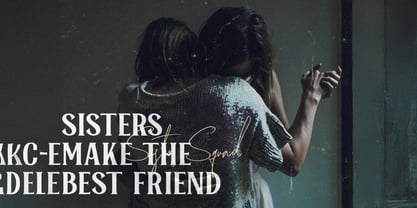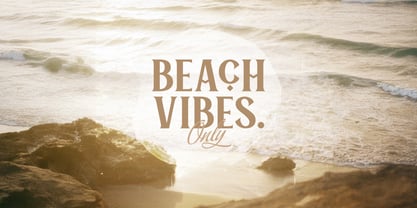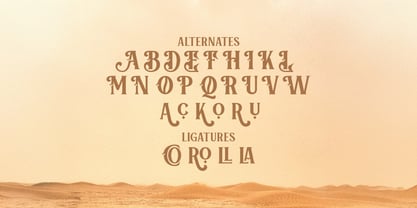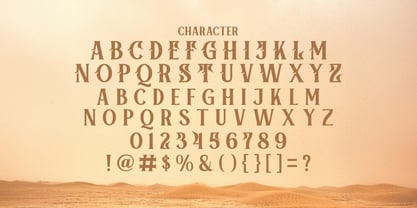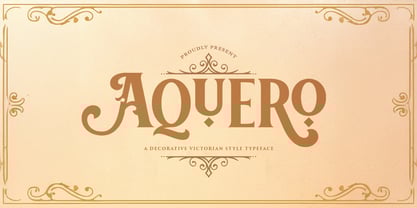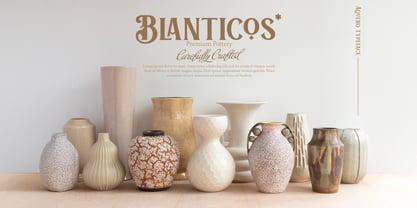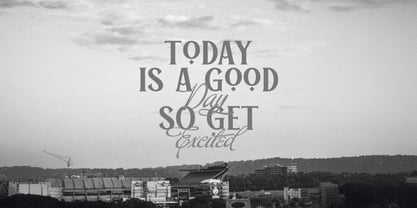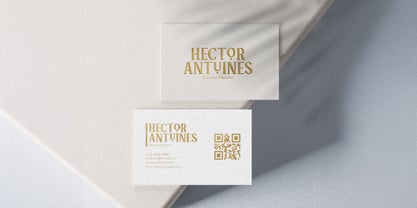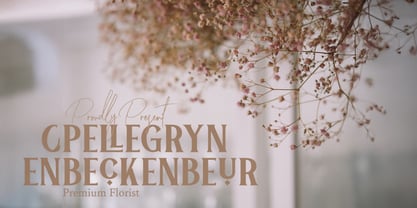
Aquero is a stunning Victorian-style font inspired by the grandeur of the 19th century. Featuring ornate details, elegant curves, and a bold presence, Aquero brings a touch of classic sophistication to your designs. Perfect for vintage branding, packaging, posters, invitations, and more, Aquero captures the spirit of a bygone era while remaining stylish and versatile for modern projects.